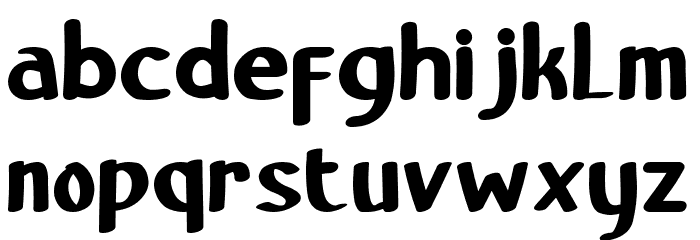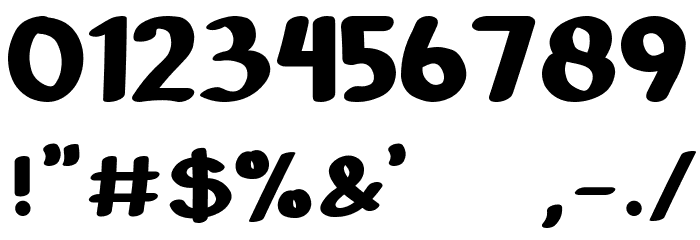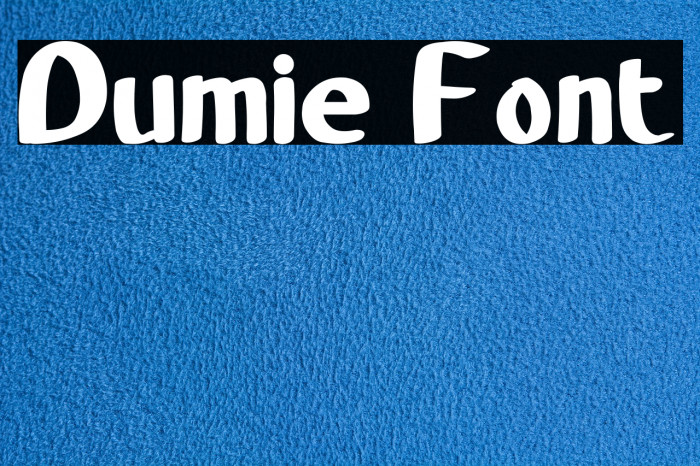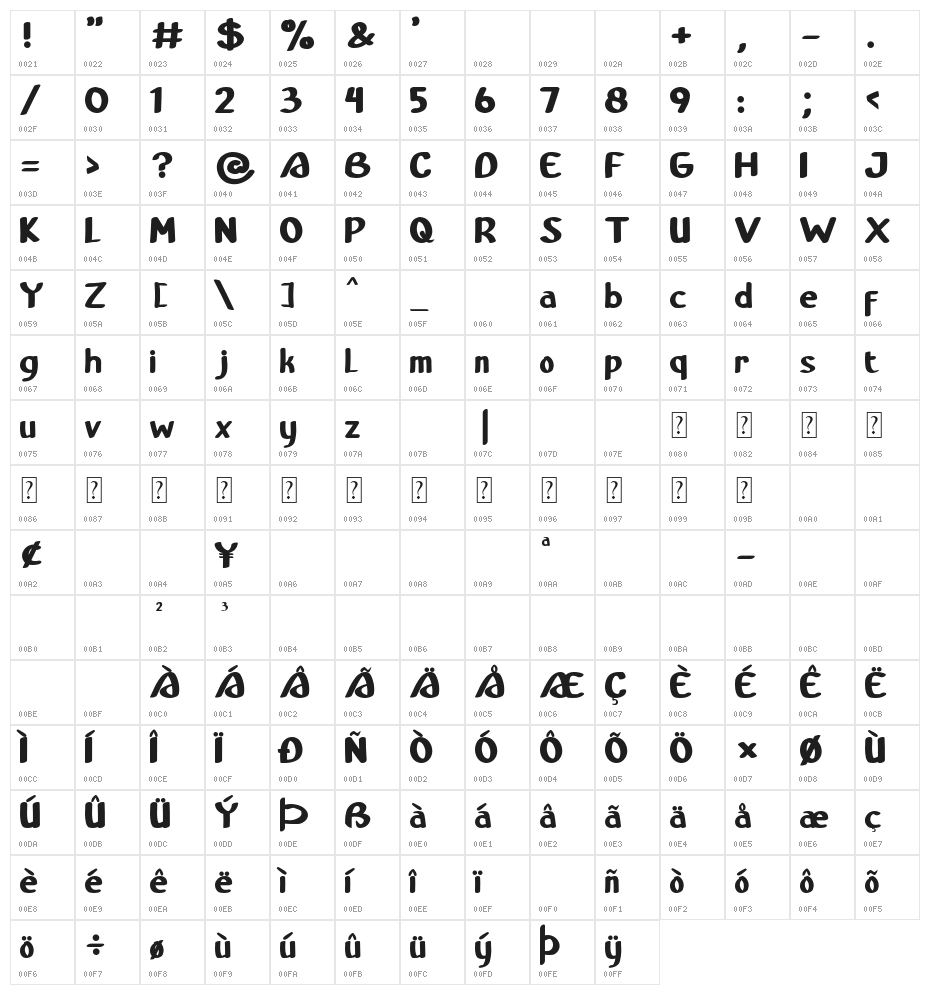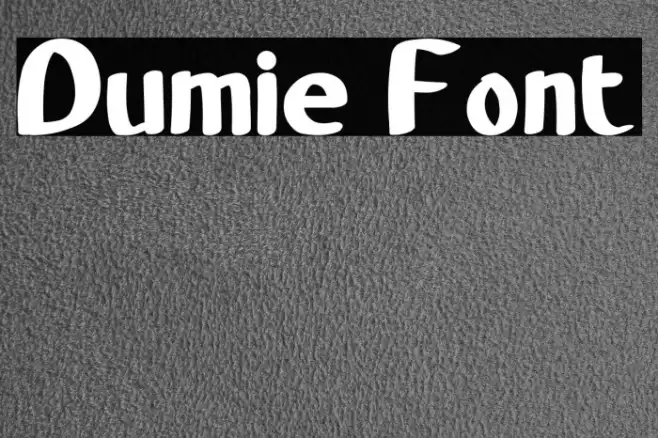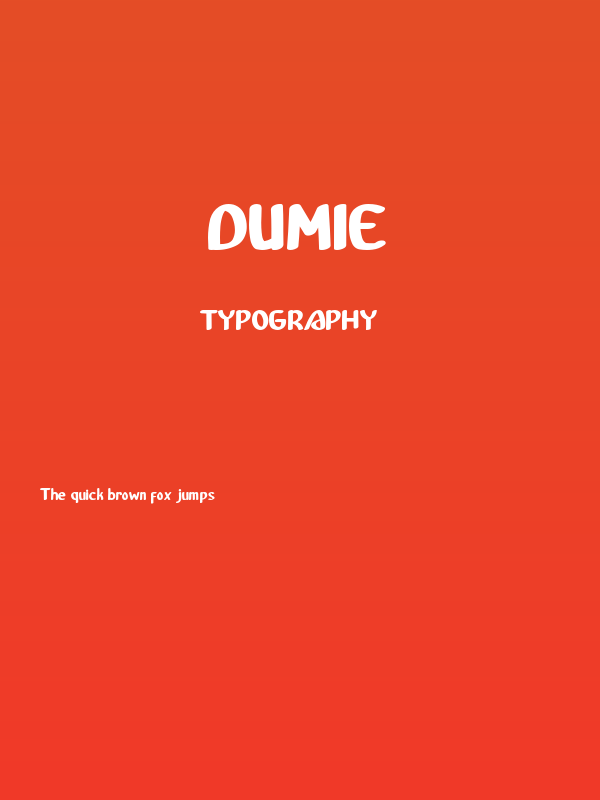
Dumie Font
This playful and bold font features rounded, thick strokes that give it a friendly and approachable appearance. The characters are slightly irregular, adding a whimsical touch to the overall design. The uppercase and lowercase letters maintain a consistent weight, while the numbers and special characters complement the style with their rounded forms. This font's unique personality makes it stand out, making it ideal for creative projects that require a touch of fun and informality.
A playful, bold font with rounded, thick strokes and a whimsical style.
- Proposed Projects: Perfect for children's books, playful branding, greeting cards, and informal event invitations.
- Overall Style: Playful